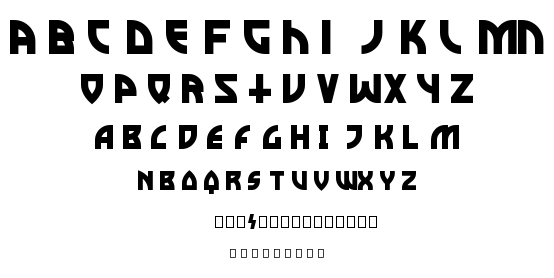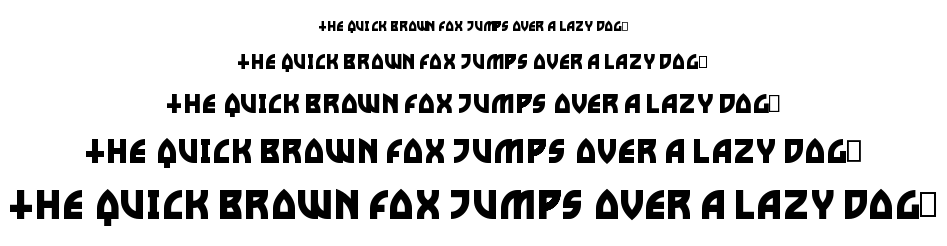
Home » Basic » Sans serif » Metal curve Sans serif Metal curve matt_doe August 15, 2015 15 Views 0 SaveSavedRemoved 0 Metal curve Font metal_curve_v5.ttf SIL Open Font License (OFL) - 1 font file Download 2025 downloads Character Mapspecimen sheetwaterfallmetal_curve_v5.ttf Metal font based on all the great metal bands of the past and present. Visit my behance site for the case study.